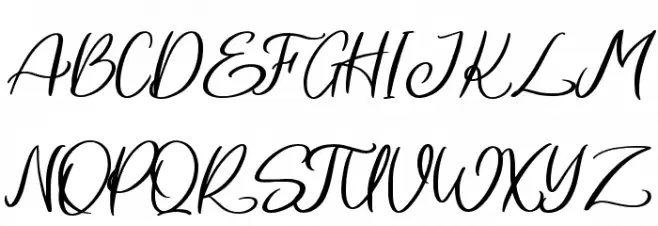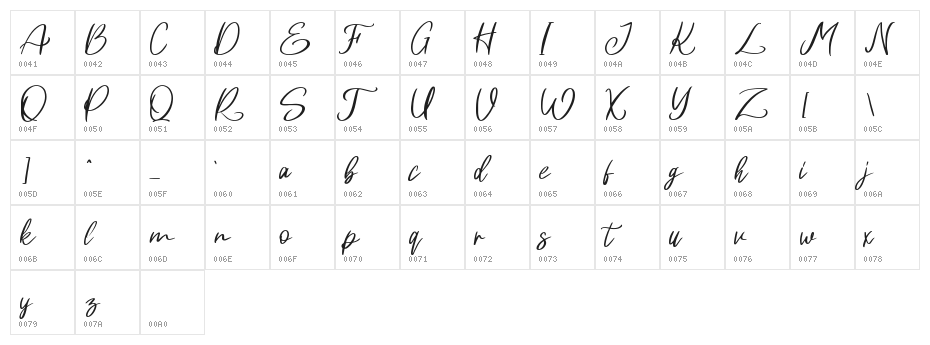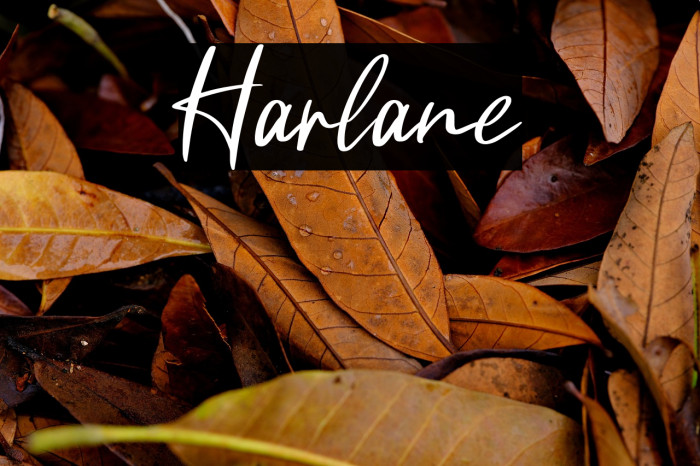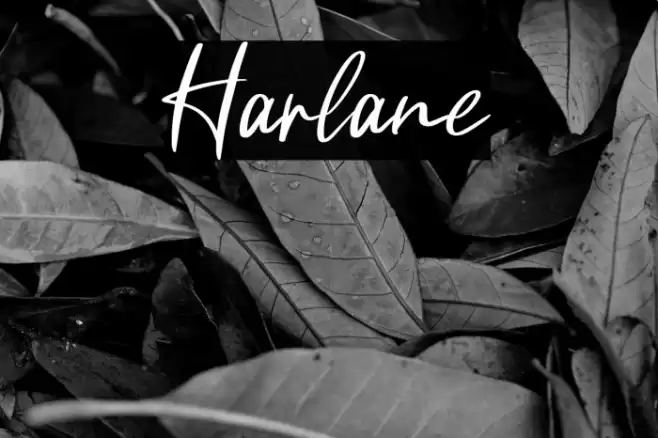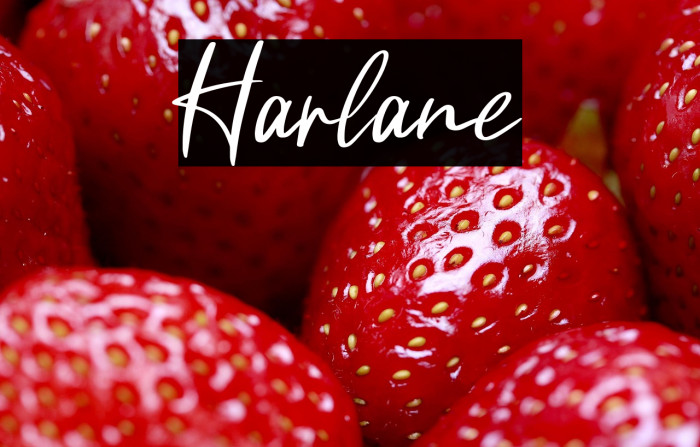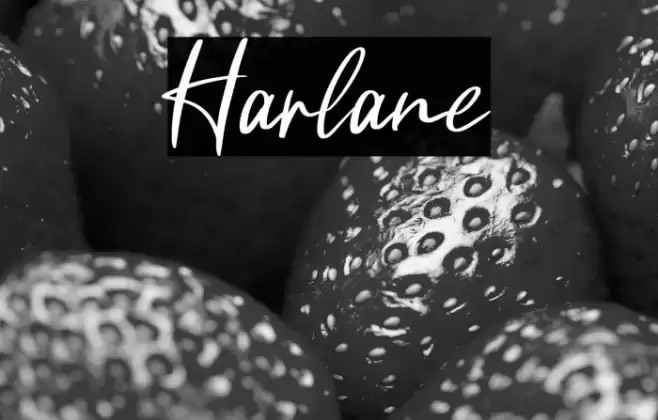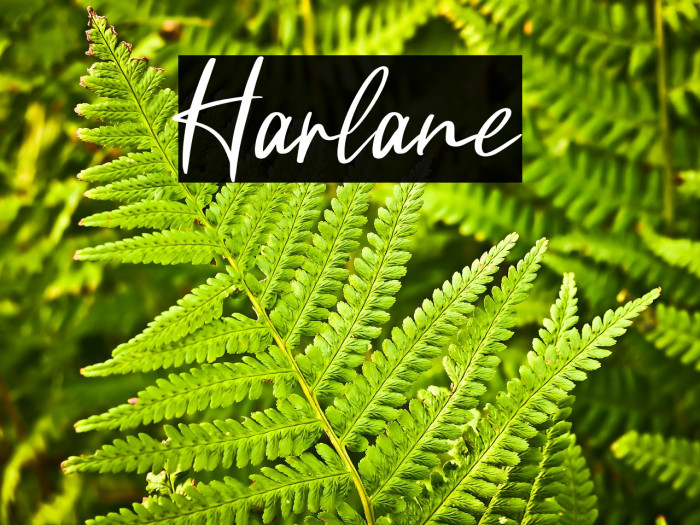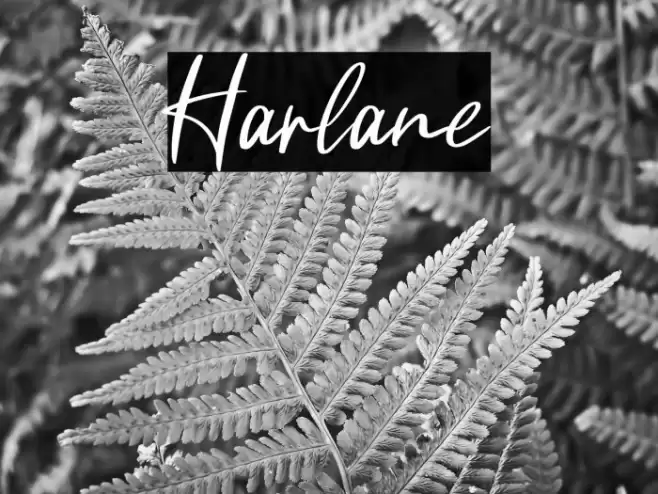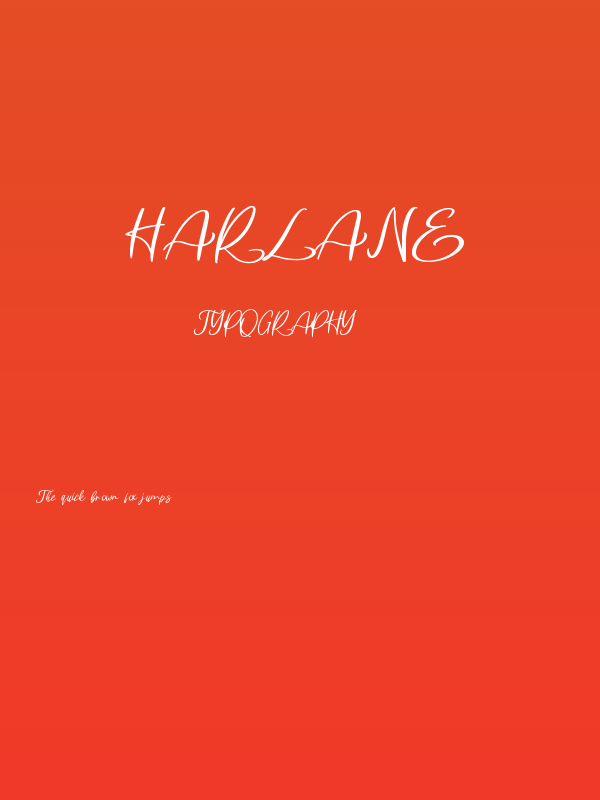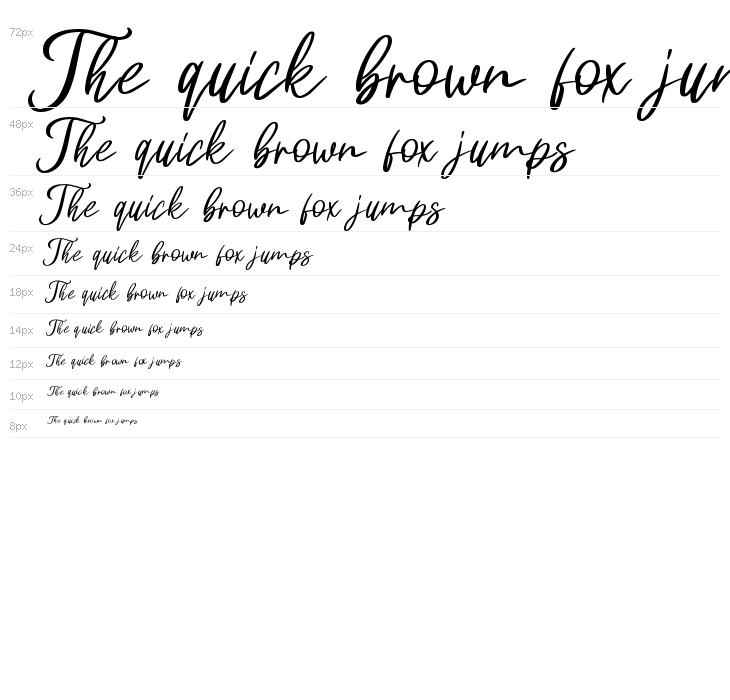
Harlane Font
Harlane Description
This font exudes a sophisticated and elegant script style, characterized by its flowing, cursive letterforms. The strokes are smooth and connected, giving it a handwritten appearance that is both graceful and dynamic. The uppercase letters are slightly more elaborate, with decorative flourishes that add a touch of flair. The lowercase letters maintain a consistent rhythm and are easily legible, making them suitable for various design applications. The font's overall aesthetic is modern yet timeless, making it versatile for both formal and casual uses.
| Overall Style | Elegant, Modern |
| Proposed Projects | Ideal for wedding invitations, branding, greeting cards, and elegant packaging designs. |